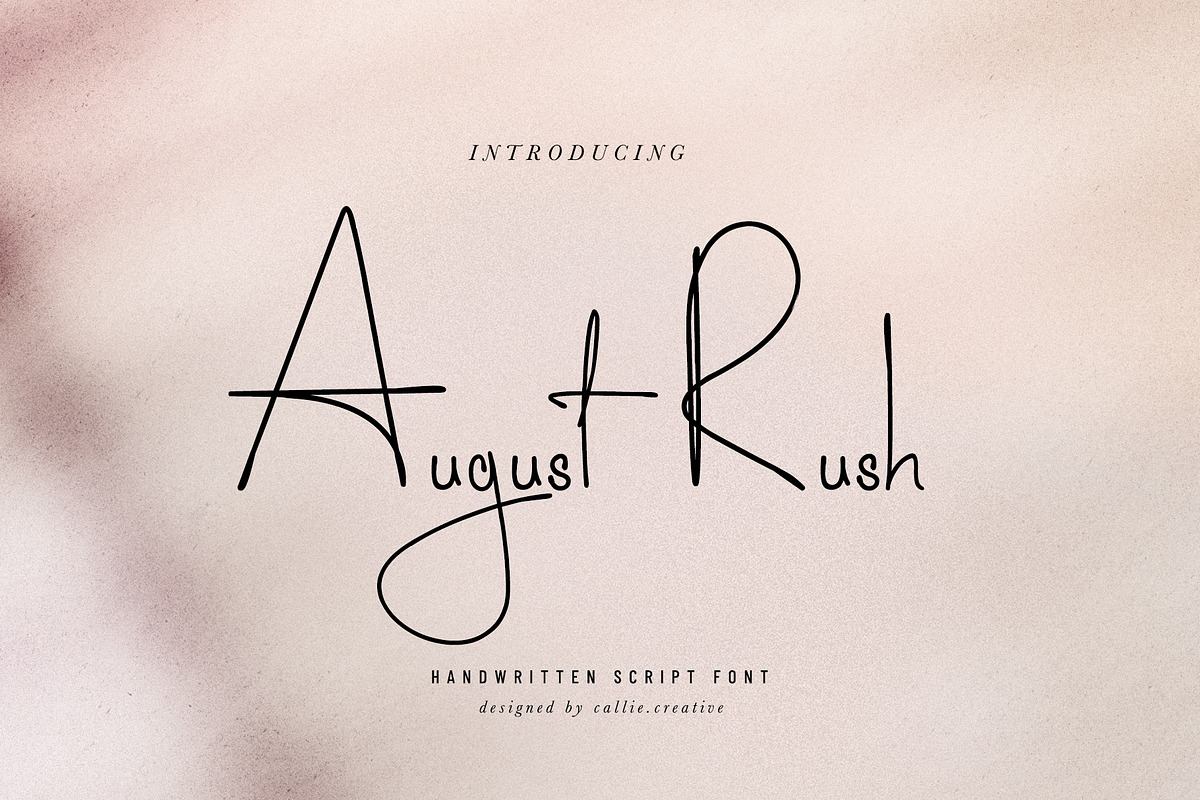
August Rush Script Font Free Download
August Rush Script Font Free Download is a stylish and elegant handwritten script typeface. Featuring smooth, fluid strokes and delicate flourishes, this font is perfect for creating sophisticated invitations, branding, logos, greeting cards, and more. Its graceful curves and modern calligraphy style bring a personal and artistic touch to any design.
Using the August Rush Script Font Free Download adds a refined and luxurious touch to your typography. Whether you’re designing a custom logo, crafting an elegant invitation, or creating high-end promotional materials, this font enhances the overall look with its timeless beauty and fluid elegance.